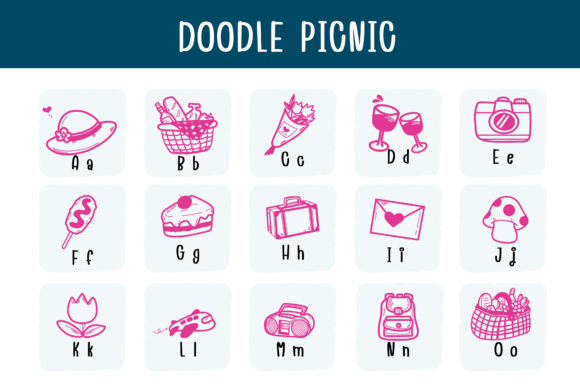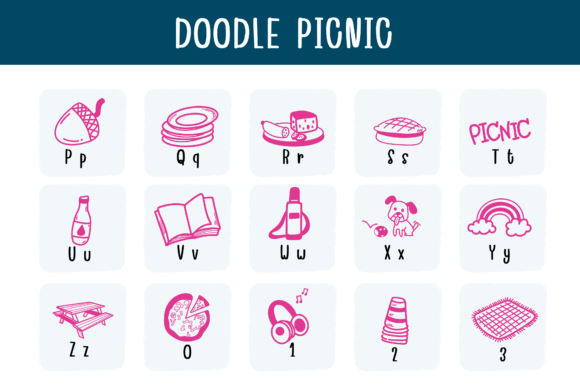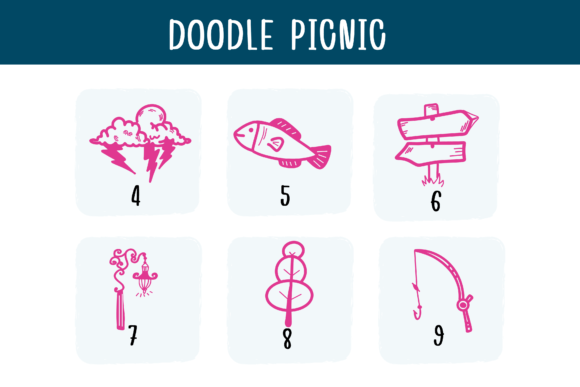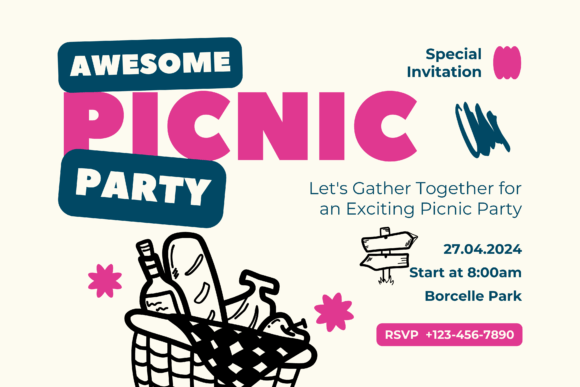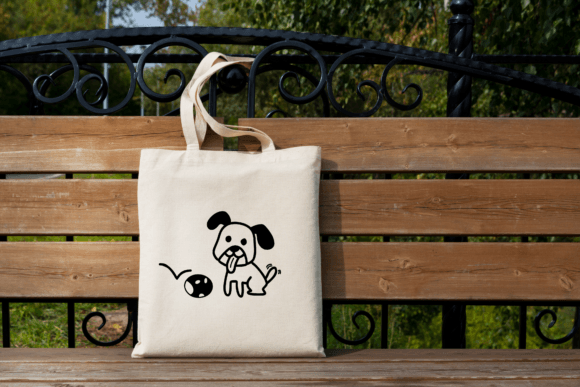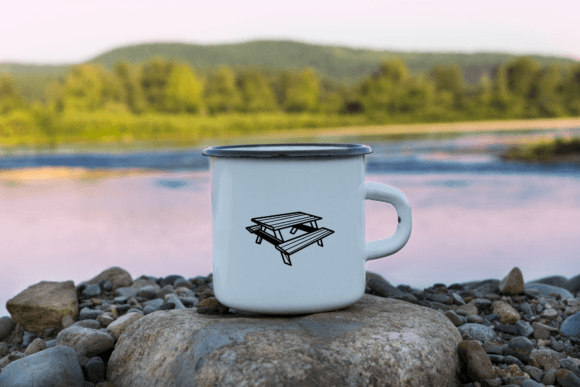
The Perfect Picnic Companion: Doodle Picnic Font
I still remember the time I was working on a picnic-themed invitation project for a client’s summer party. I had all the design elements ready, but I was struggling to find the right font that would capture the playful and carefree spirit of a picnic. That’s when I stumbled upon the Doodle Picnic font, and it was love at first sight! 🤩
This fun and playful dingbat font is filled with icons of things you need for a picnic, such as picnic baskets, sandwiches, drinks, fruits, and more. It’s perfect for creating invitations, party decorations, and other picnic-themed designs.
- ✨ The font is incredibly versatile and can be used for a wide range of design projects, from invitations to party decorations.
- ✅ The icons are beautifully designed and are sure to add a touch of whimsy to any design.
- 🎉 The font is easy to use and comes with a wide range of glyphs and stylistic alternates.
While I absolutely love the Doodle Picnic font, there are a few small quirks to be aware of. For example:
- 🤔 Some of the icons may not be suitable for smaller font sizes, so it’s best to use them at larger sizes for optimal visibility.
The Doodle Picnic font was inspired by the joy and simplicity of a picnic in the park. The designer wanted to create a font that would capture the carefree spirit of a summer day and provide a fun and playful way to add icons and illustrations to designs.
| Font Name | Doodle Picnic Font |
| Author | Bee piyanuch |
| What is the Doodle Picnic font? | The Doodle Picnic font is a fun and playful dingbat font filled with icons of things you need for a picnic. |
| What can I use the Doodle Picnic font for? | You can use the Doodle Picnic font for creating invitations, party decorations, and other picnic-themed designs. |
| Is the Doodle Picnic font easy to use? | Yes, the Doodle Picnic font is easy to use and comes with a wide range of glyphs and stylistic alternates. |